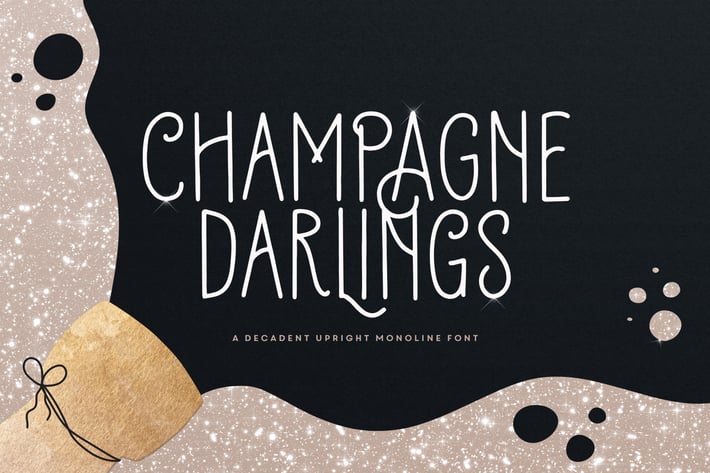
Champagne Darlings Typeface
This decorative, all-caps font is super legible, so it’s great for headlines & logos. It also works beautifully on merch like mugs and stationary, but it’s delicate enough for wedding invites and bridal designs!
- A small set of dingbats & catchwords.